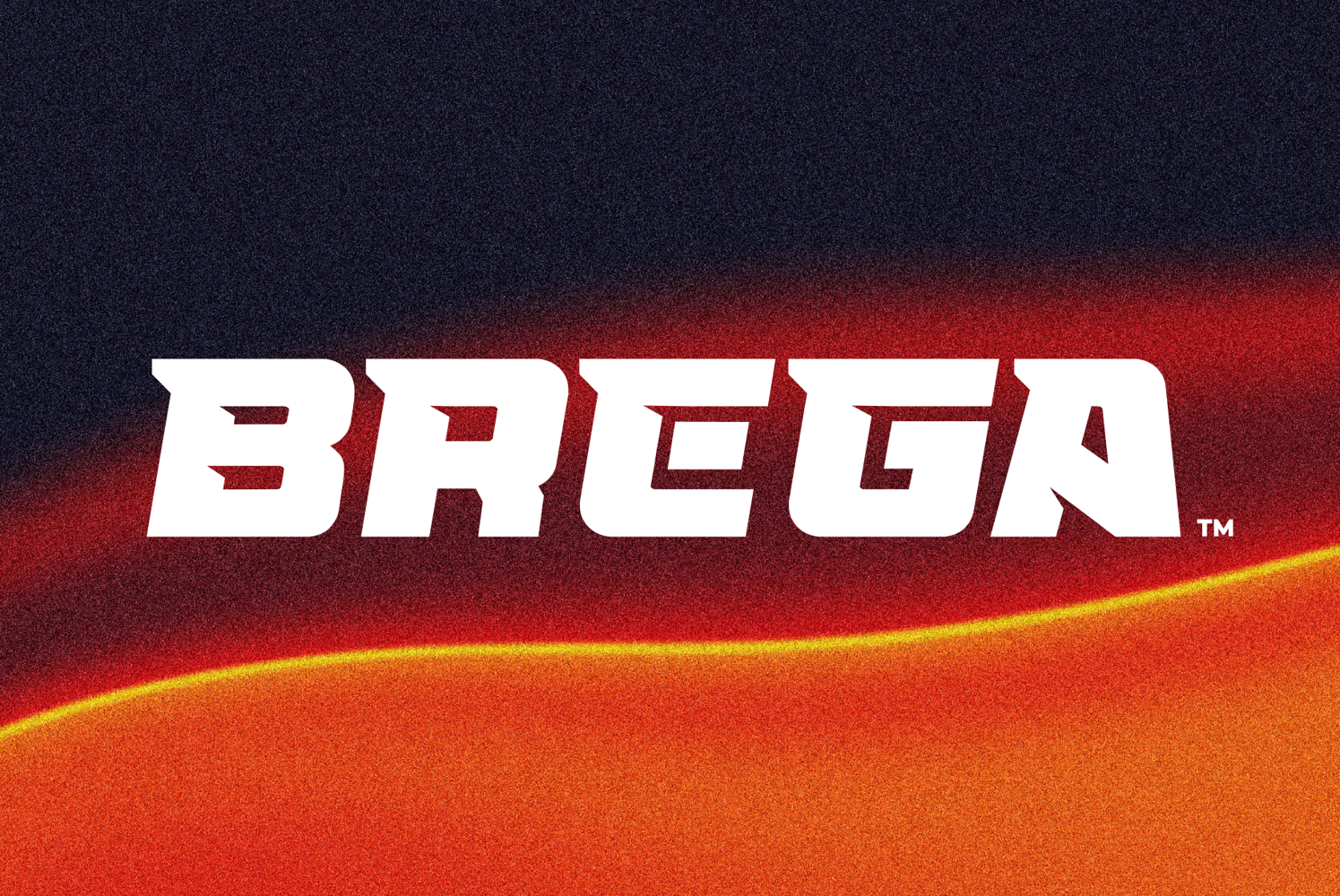
BREGA Bold Sport Display Font
Brega
BREGA is a bold sport display font designed for strength, speed, and impact. Perfect for sports branding, gym visuals, team identity, racing, esports, posters, logos, and athletic promotions. Clean, modern, and powerful letterforms built for high-performance design.
Ideal for gym branding, football and basketball posters, racing graphics, esports visuals, logos, apparel, and digital promotions. BREGA delivers strong readability with a modern, powerful, and professional sport aesthetic.